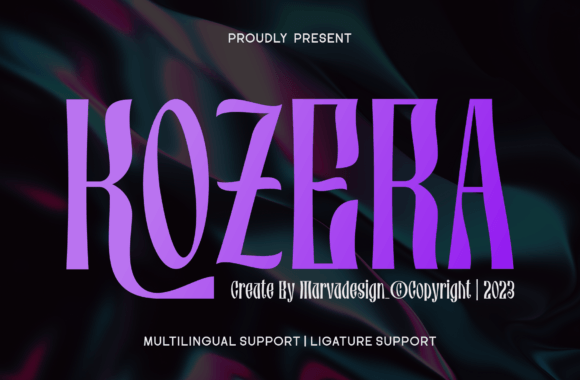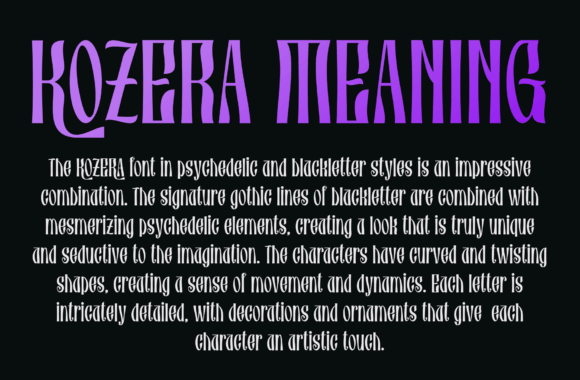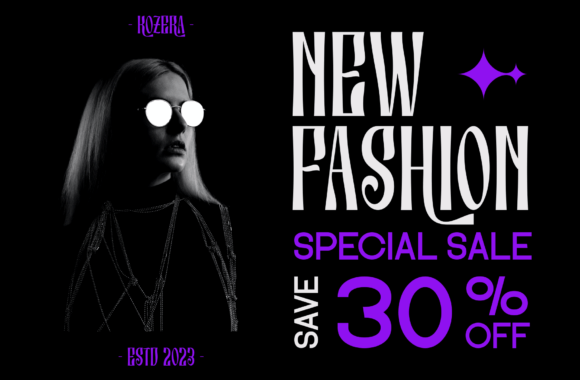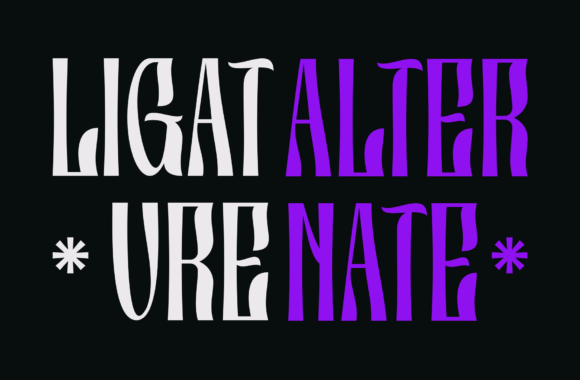
Kozera Font: Trippy Psychedelic Display Font for Bold Designs
About the Kozera Font
Make a bold statement with Kozera Font, a powerful and memorable font. “Kozera a Display Psychedelic” is a visual experience that features bright, colorful, and mind-bending patterns and designs. It’s like a digital artwork that makes you feel like you’re seeing the world in a new, exciting way. The colors and shapes seem to move and change, creating a fascinating and trippy effect.
Kozera’s bold, psychedelic nature makes it ideal for eye-catching headlines, posters, and branding projects requiring a vibrant, unconventional aesthetic. It excels in short, impactful text applications where its unique forms can shine. However, its highly decorative style is unsuitable for body text or UI elements, where readability is paramount. Long blocks of Kozera would be visually overwhelming and difficult to read.
Pairing Kozera effectively requires a contrasting typeface to provide balance. A clean, geometric sans-serif like Futura or a minimalist serif such as Garamond would create a sophisticated juxtaposition. Alternatively, a playful script font could enhance Kozera’s whimsical energy, but should be used sparingly to avoid visual overload.
The font’s overall personality is energetic and rebellious, best suited for brands targeting a youthful, creative audience interested in psychedelia, art, music, or fashion.
Kozera Font Usage Examples
Kozera Font Example